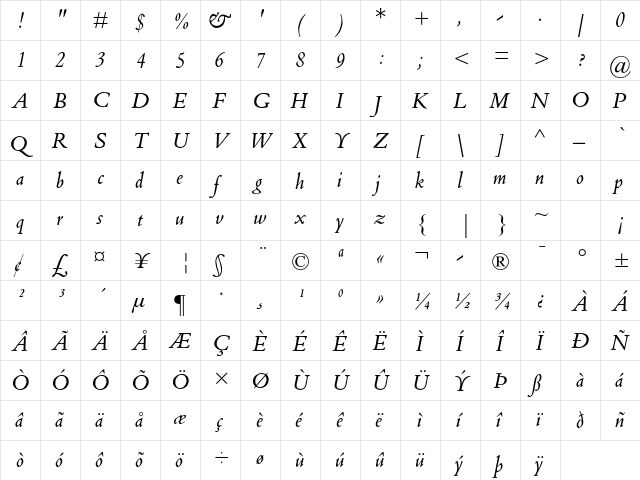
Blado MT Std Italic Regular
Design Context for Blado MT Std Italic Typeface
Blado MT Std Italic takes a measured approach to typography — its balanced proportions and neutral character make it a reliable workhorse for both digital and print work. The slanted form adds forward momentum and visual energy.
Pro Tip: Use Blado MT Std Italic for emphasis, pull quotes, and subheadings where its slanted energy can add rhythm to the layout.